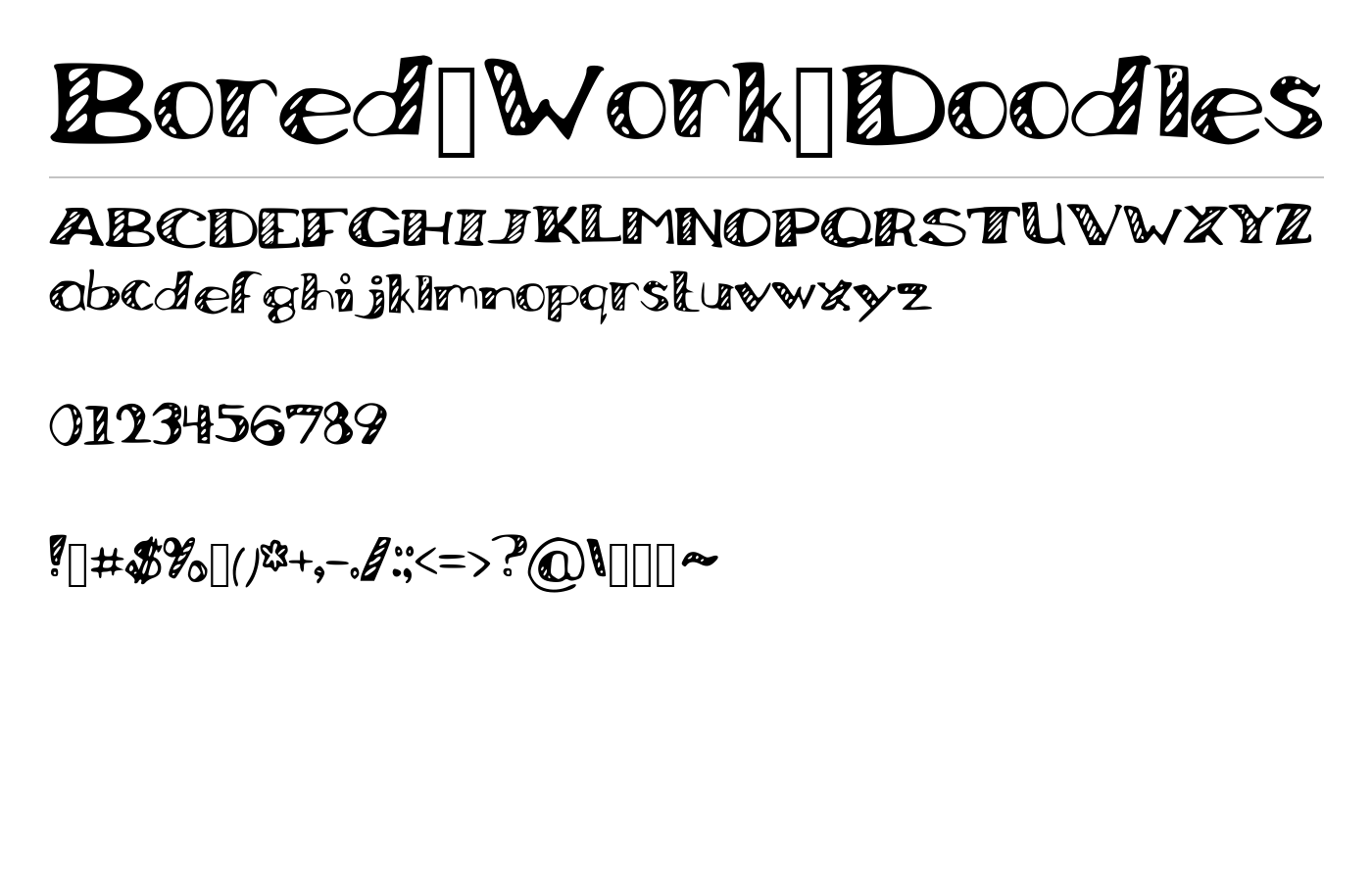
Bored_Work_Doodles is a playful, hand-drawn sans serif font with a quirky, informal style that adds a sense of fun and creativity to any design. Its uneven lines and textured, doodle-like fill make it perfect for casual, artistic projects such as posters, children’s books, or creative branding. This font works best in titles and headlines where its whimsical personality can truly shine.
Bored_Work_Doodles Font